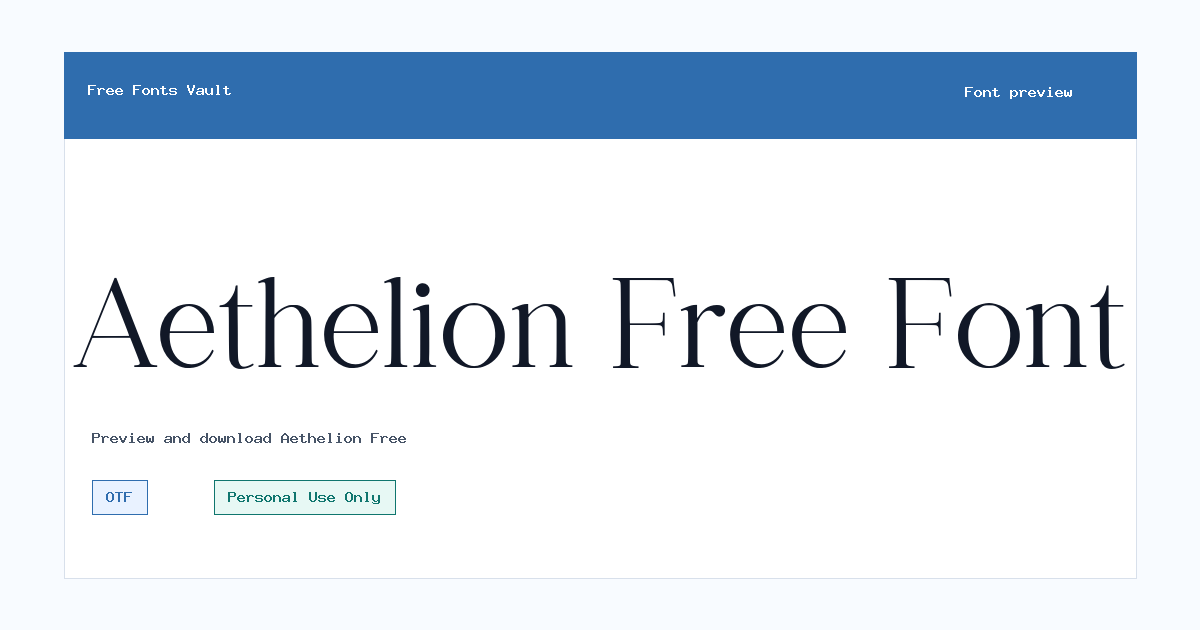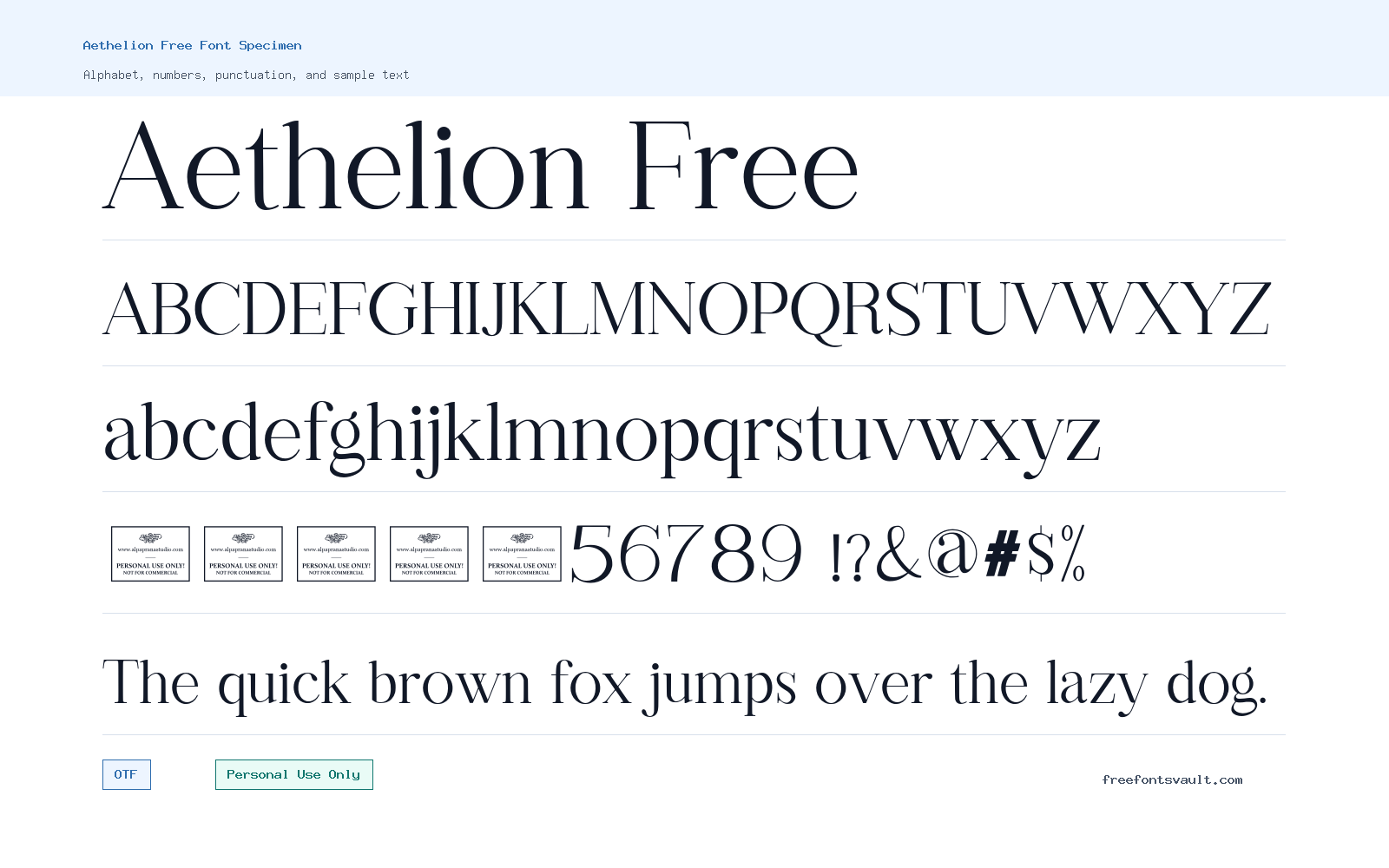
Aethelion Free
Aethelion Free is a serif font from Alpaprana Studio, offered here in a regular OTF style for personal-use projects. It is best approached as a display face: try it in the preview box with names, short headings, and sample phrases before using it in a full design.
Aethelion Free gives visitors a serif option for projects that need a more formal or decorative tone than a plain sans serif. Because the available file is a regular 400-weight OTF, it is a straightforward install for most design apps and operating systems that support OpenType fonts. Use the live preview to check how its letterforms behave at the size you need, especially in uppercase words, mixed-case titles, and lines with punctuation. A serif font can look polished in large text, but the final result depends on spacing, word length, and the background behind it.
This font is a practical choice for personal design drafts such as invitation mockups, quote graphics, name treatments, mood boards, book-cover concepts, social posts, and logo experiments that are not being used commercially. Keep the text short when you want the style to stand out. For longer paragraphs, pair it with a simple, quiet body font so the page stays readable. If you are testing it for branding or client work, treat the preview as a visual test only until you have the proper commercial license from the rights holder.
- Serif design suited to short display text, headings, and decorative personal projects
- Personal invitations, quote images, and title graphics
- Display mockups, mood boards, and non-commercial branding concepts